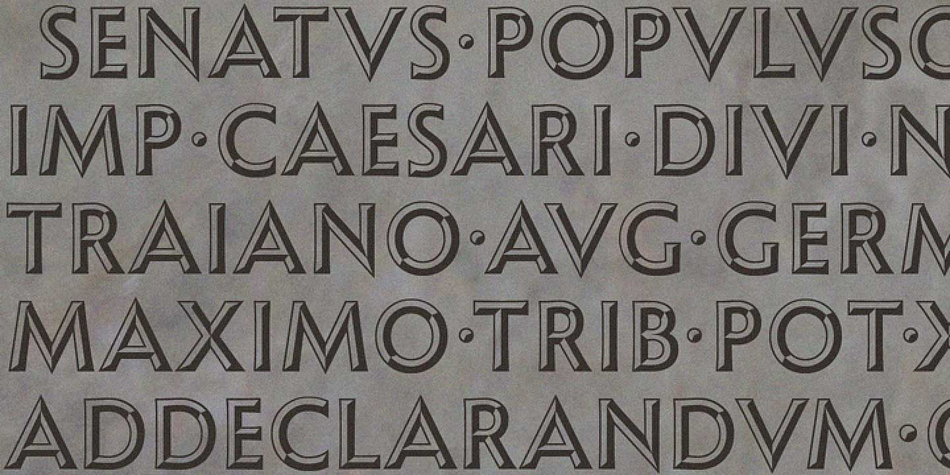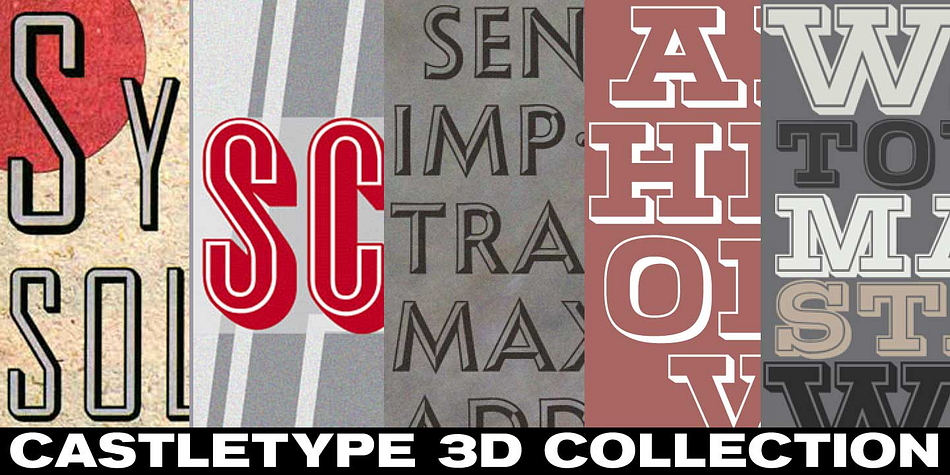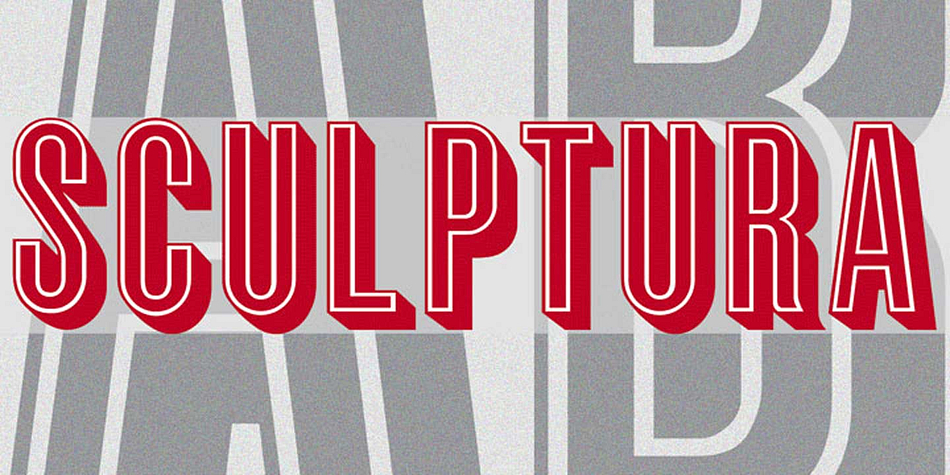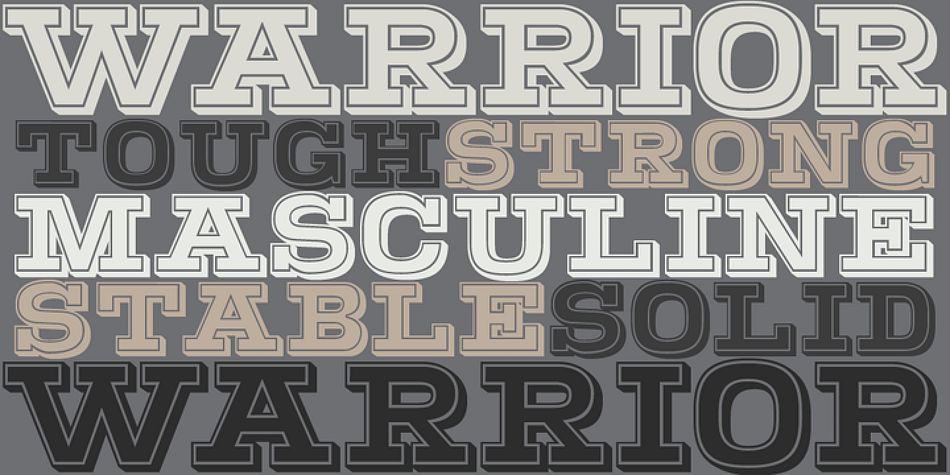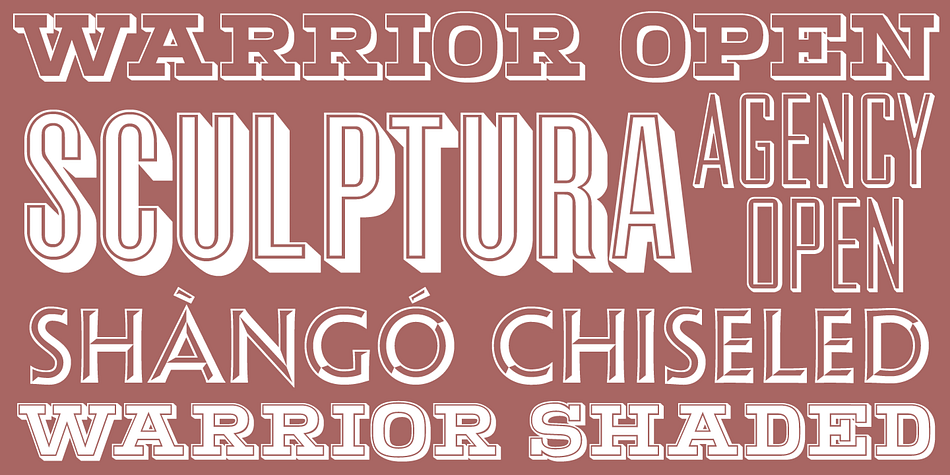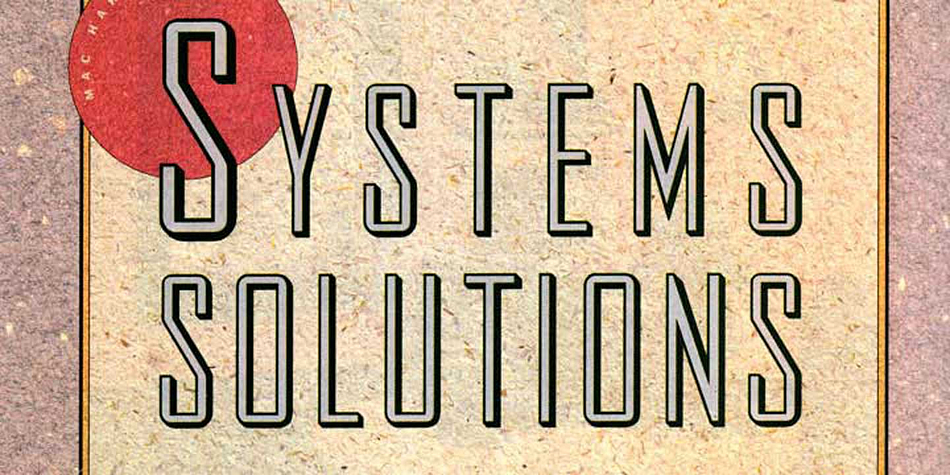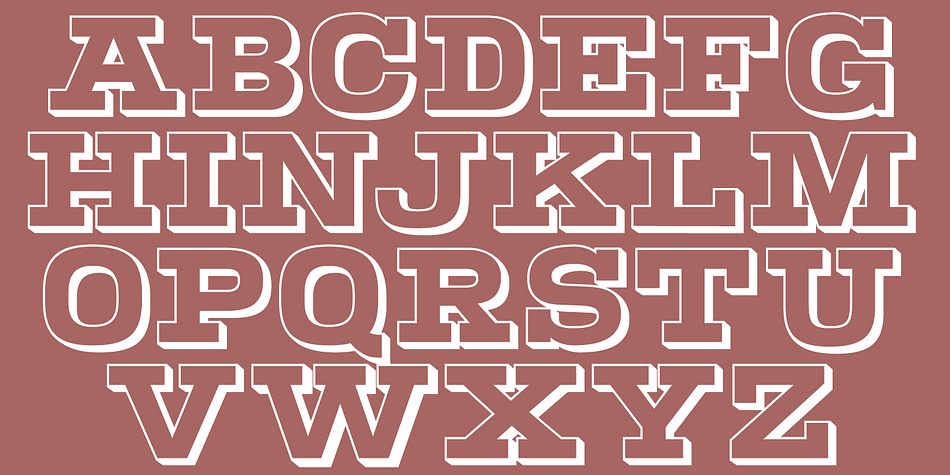
CastleType 3D is a multiple classification font collection published by CastleType.
A selection of three dimenionsal and shaded fonts from the CastleType library.